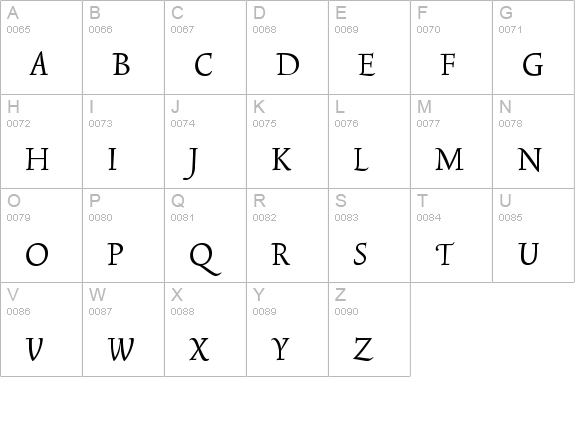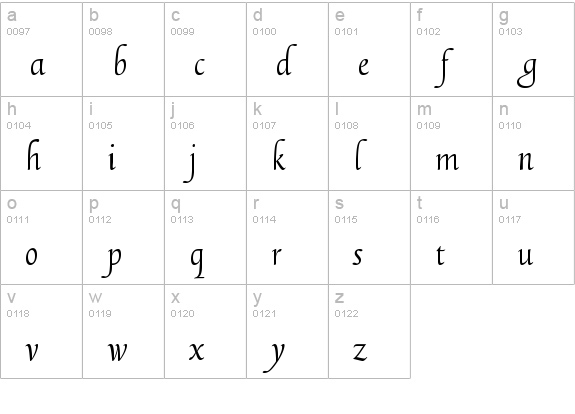
TriniteNo4-Italic Font Details
TriniteNo4-Italic is a distinctive, italic variant in the TriniteNo4 typeface family \xE2\x80\x94 well suited to design and typography projects.
TriniteNo4-Italic font is a magnificent display of elegance and grace. Its sleek and slanted design gives it a touch of modernity while maintaining a sense of sophistication. The delicate curves and smooth lines of each letter create a harmonious flow that captivates the eye. This font is a perfect choice for those seeking a touch of finesse in their designs. Whether it's for a logo, a headline, or even a wedding invitation, TriniteNo4-Italic font will add a touch of class and refinement to any project. One of the best things about TriniteNo4-Italic font is that it is freely available to download at FontsMarket.com. This means that you can easily access this stunning font without any cost. It's a fantastic opportunity for designers, students, and anyone who appreciates beautiful typography to enhance their work with a high-quality font, without breaking the bank. With TriniteNo4-Italic font, you can elevate your designs to new heights. Its stylish and unique appearance will make your projects stand out from the crowd, leaving a lasting impression on your audience. Don't miss out on this incredible font - download TriniteNo4-Italic font for free at FontsMarket.com and let your creativity soar.